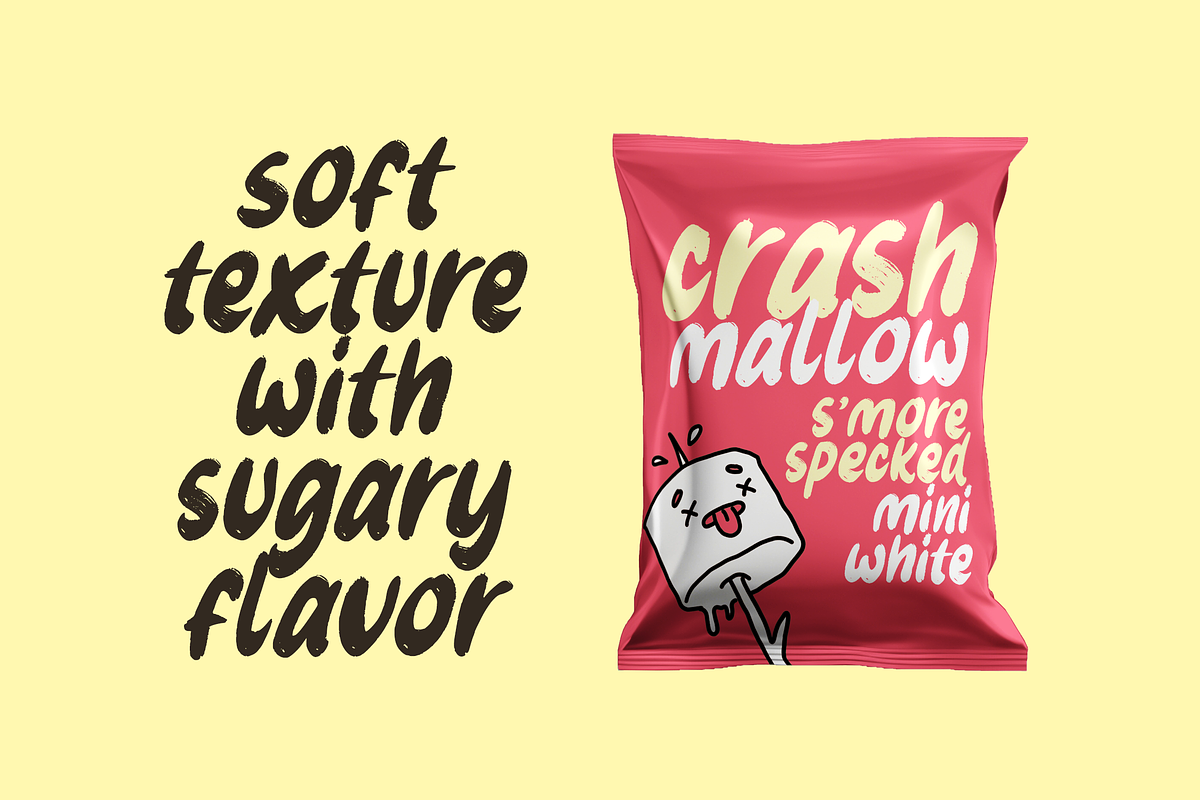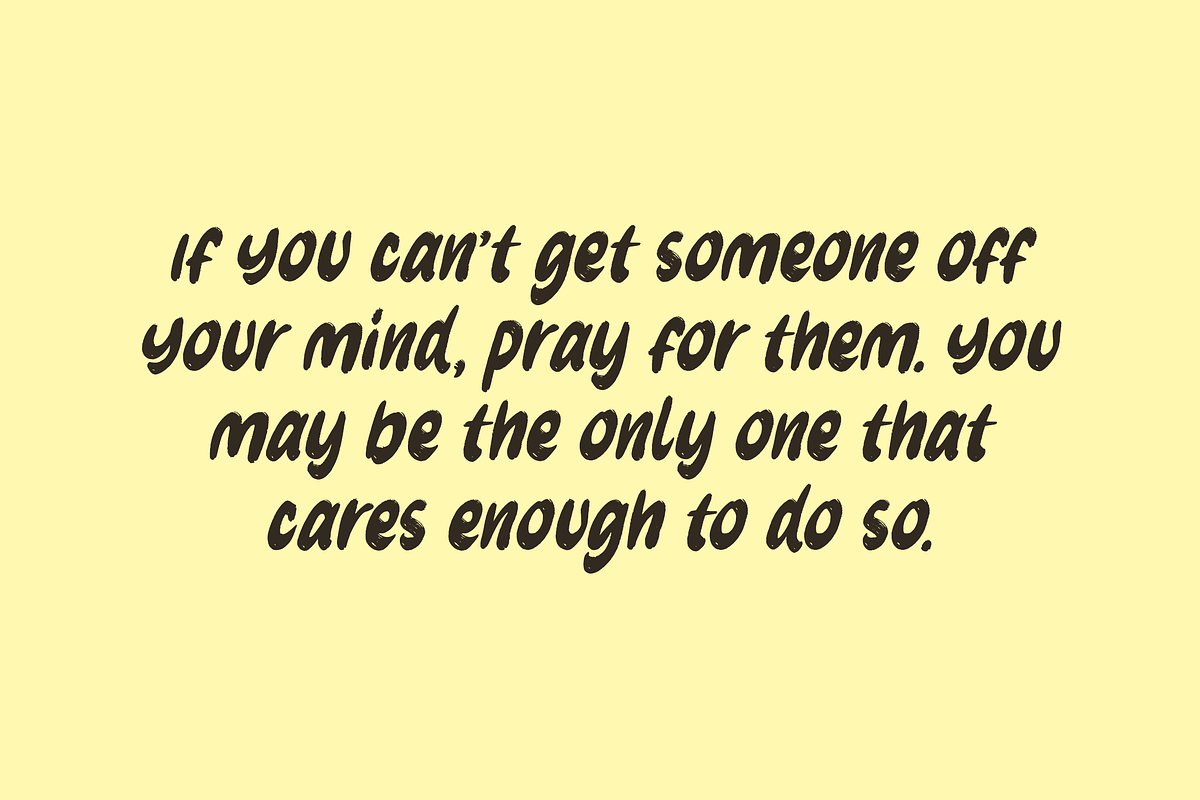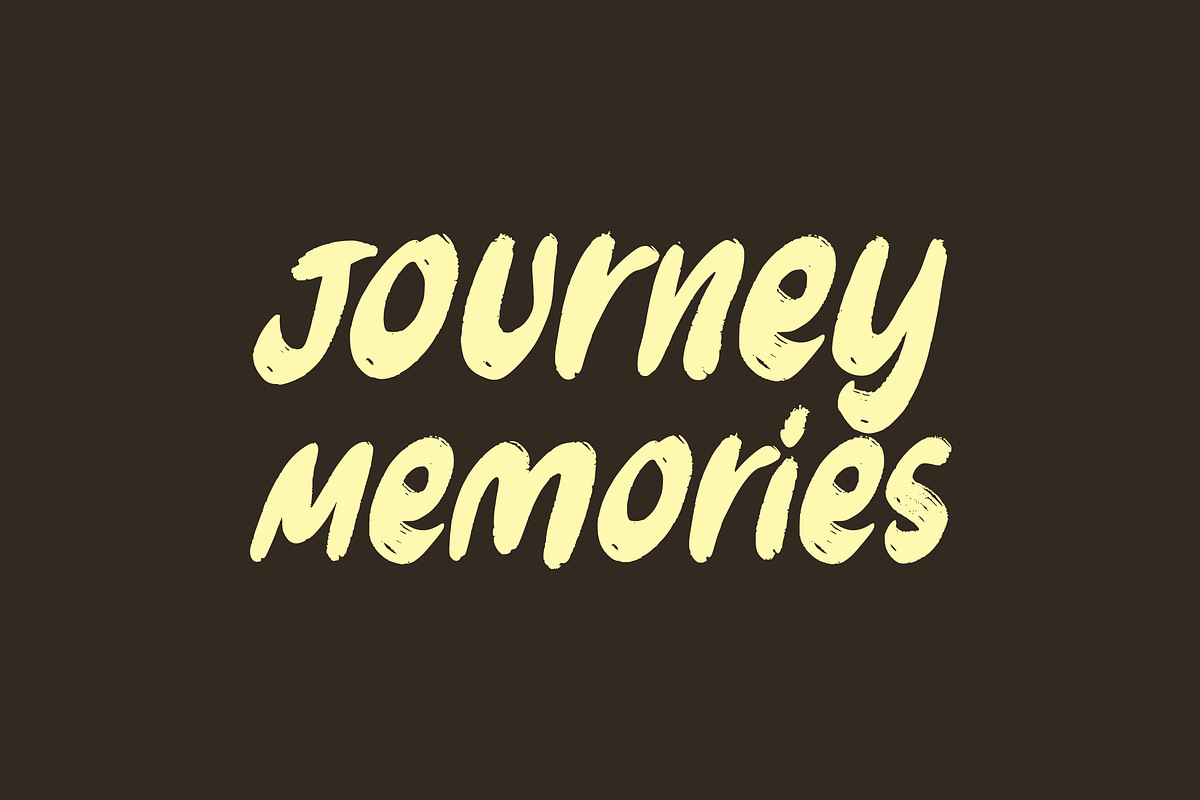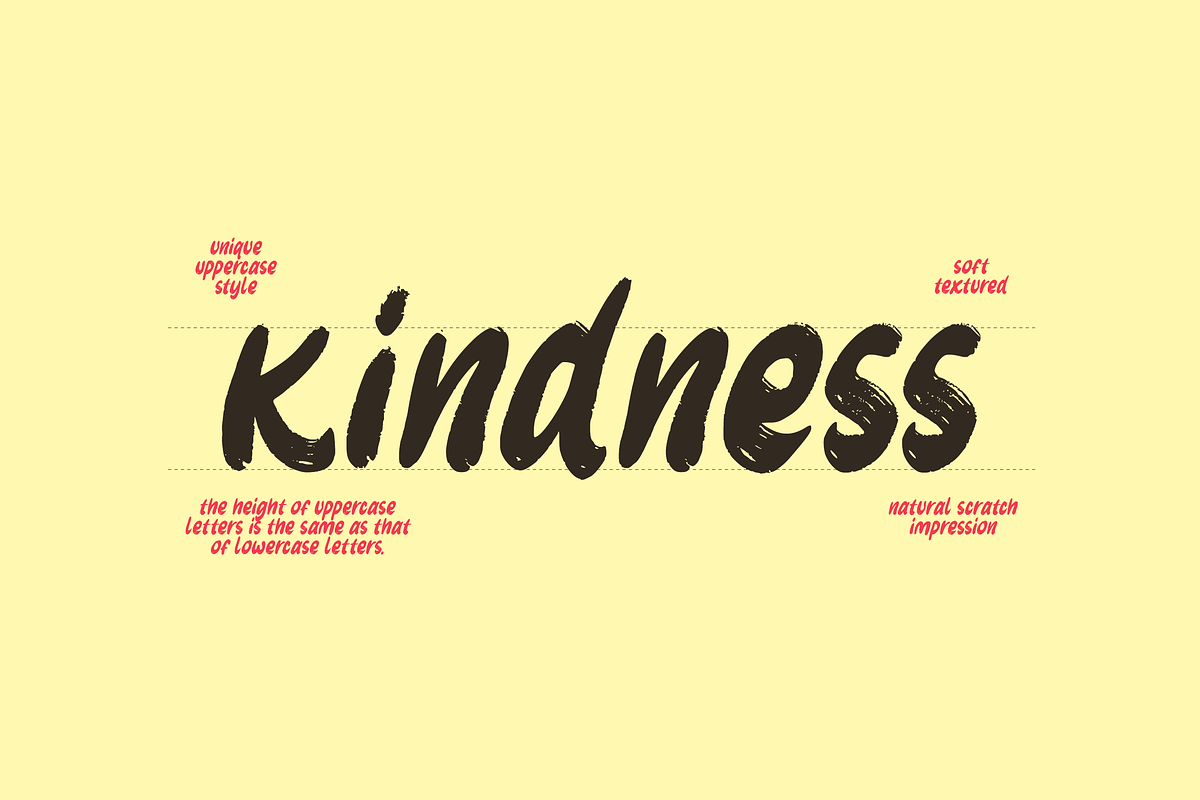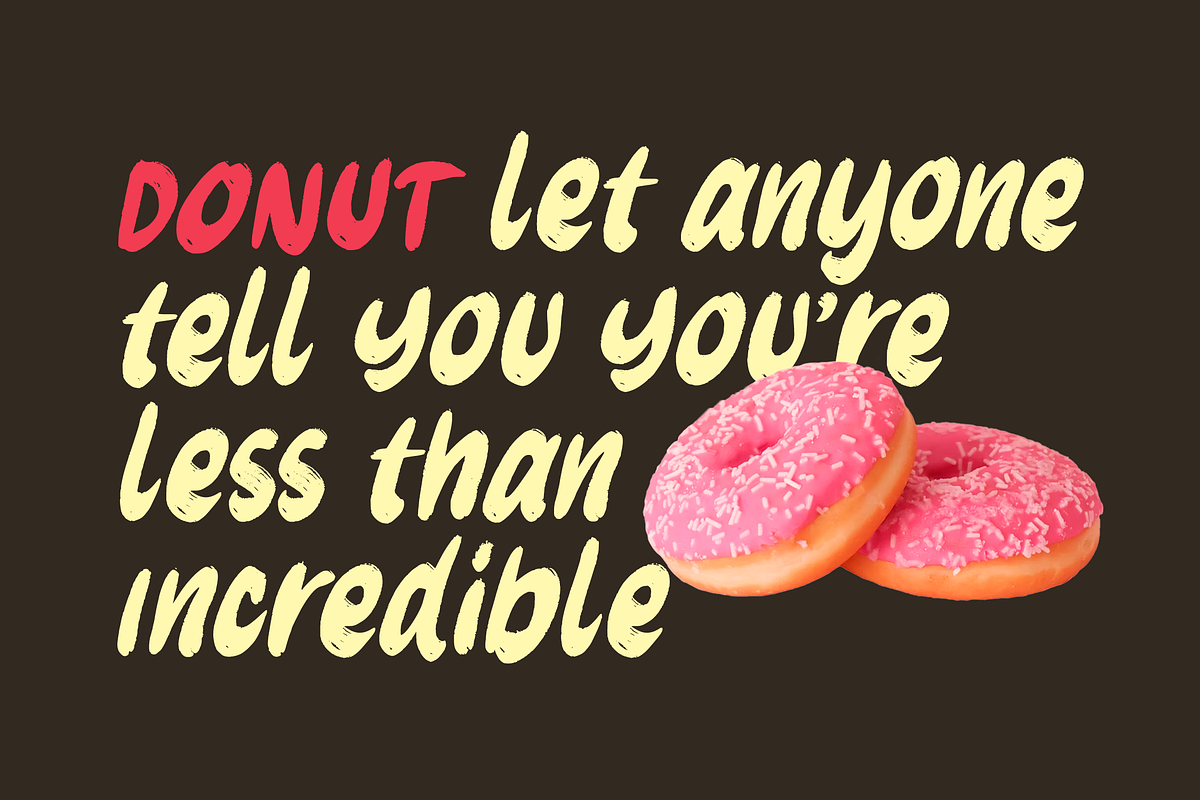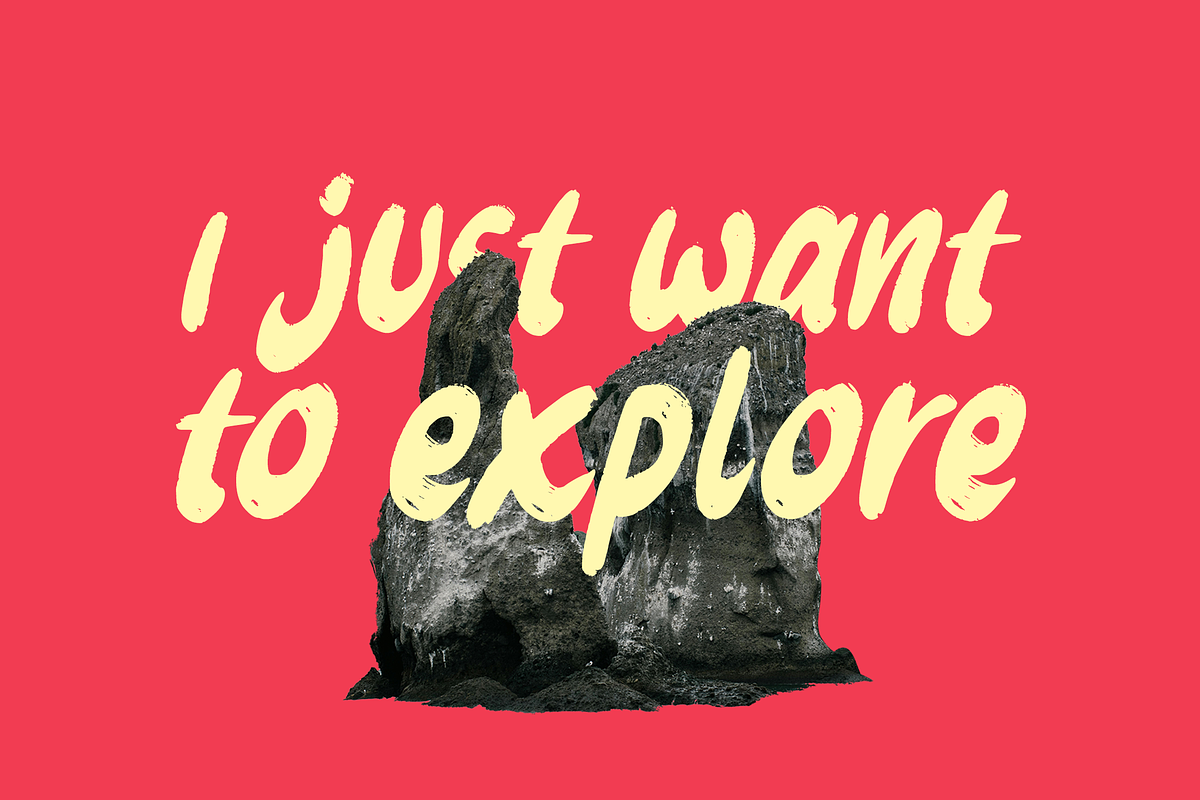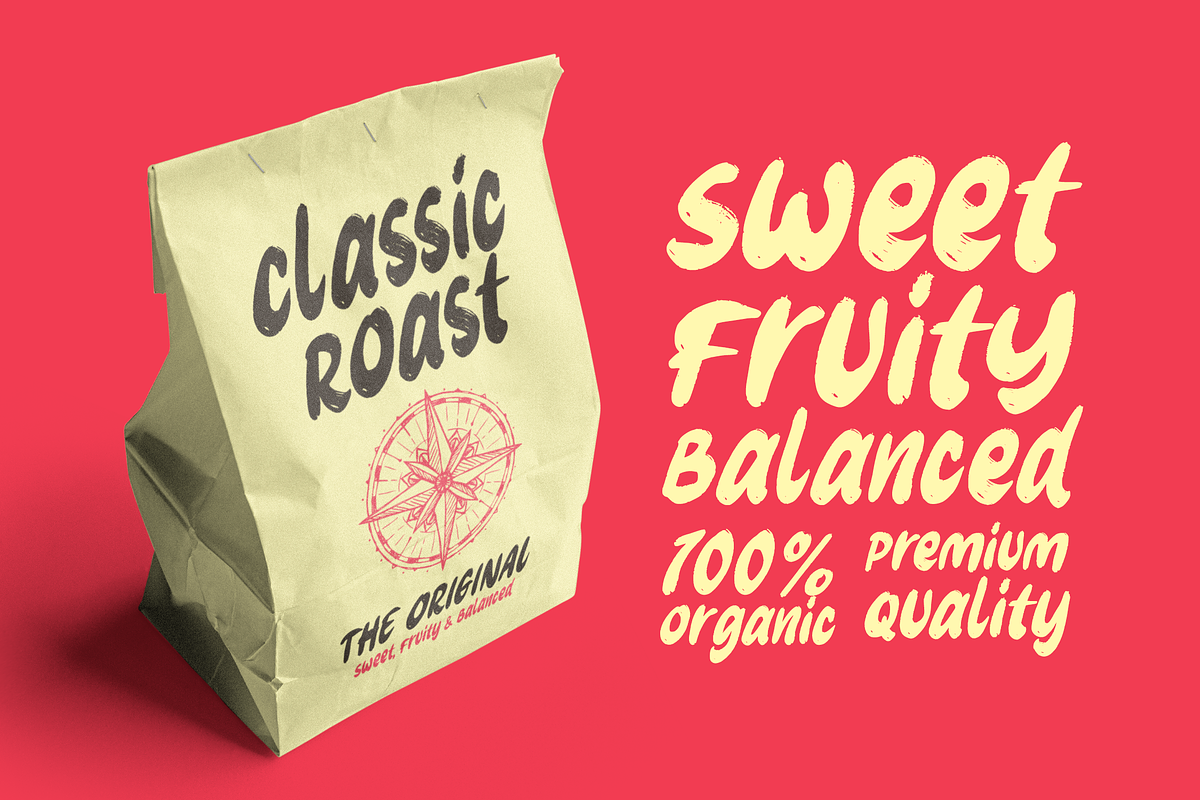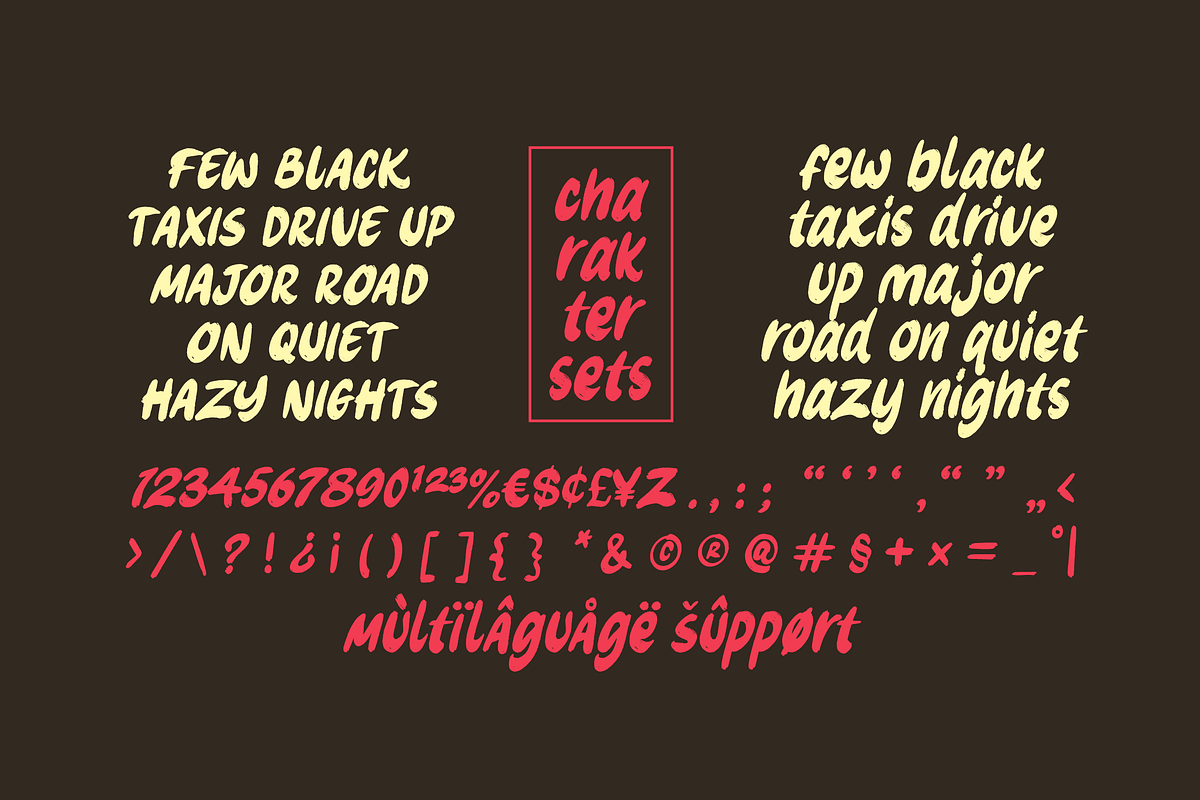
Journey Memories
Journey Memories is a typeface that combines old world aesthetics with modern design sensibilities. In the world of typography, bold writing with a soft texture can evoke an elegant and warm impression. It’s like a gentle power, pleasing to the eye, and its soft texture adds a personal touch. It’s a beautiful balance between boldness and subtlety, creating a visual harmony that’s both inviting and impactful.